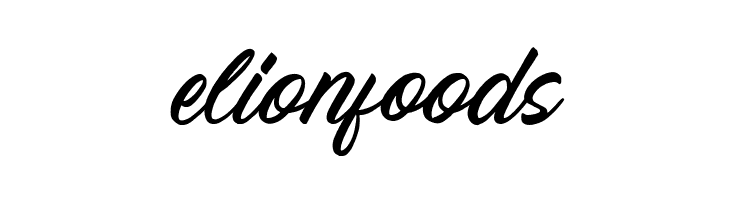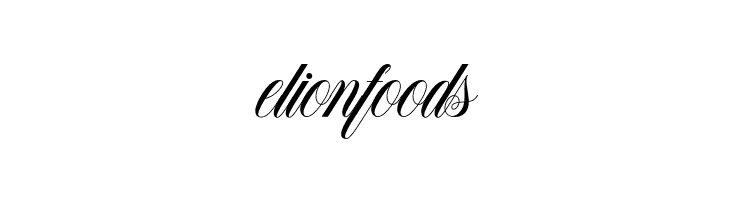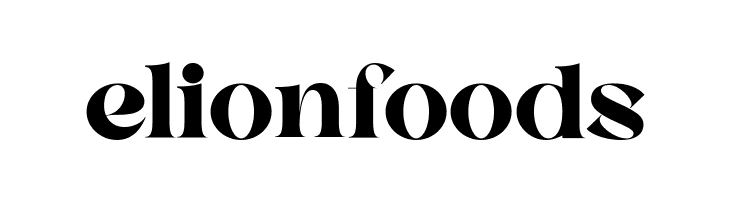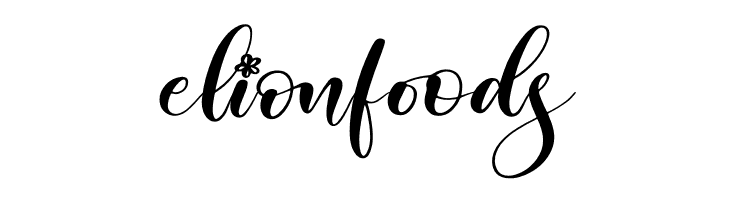
An elegant script font with intricate loops and swashes, perfect for sophisticated designs.
A flowing, cursive script font with elegant, interconnected characters.
An elegant script font with intricate swashes and decorative flourishes.
An elegant script font with flowing, decorative swashes and loops.
An elegant script font with fluid, flowing lines and sophisticated curves.
A high-contrast, elegant font with dramatic serifs and curves.
An elegant, cursive script font with flowing curves and delicate flourishes.
An elegant script font with flowing, interconnected letters and sophisticated flourishes.
An elegant script font with flowing, cursive characters and intricate swashes.
A sophisticated script font with flowing, elegant letterforms.